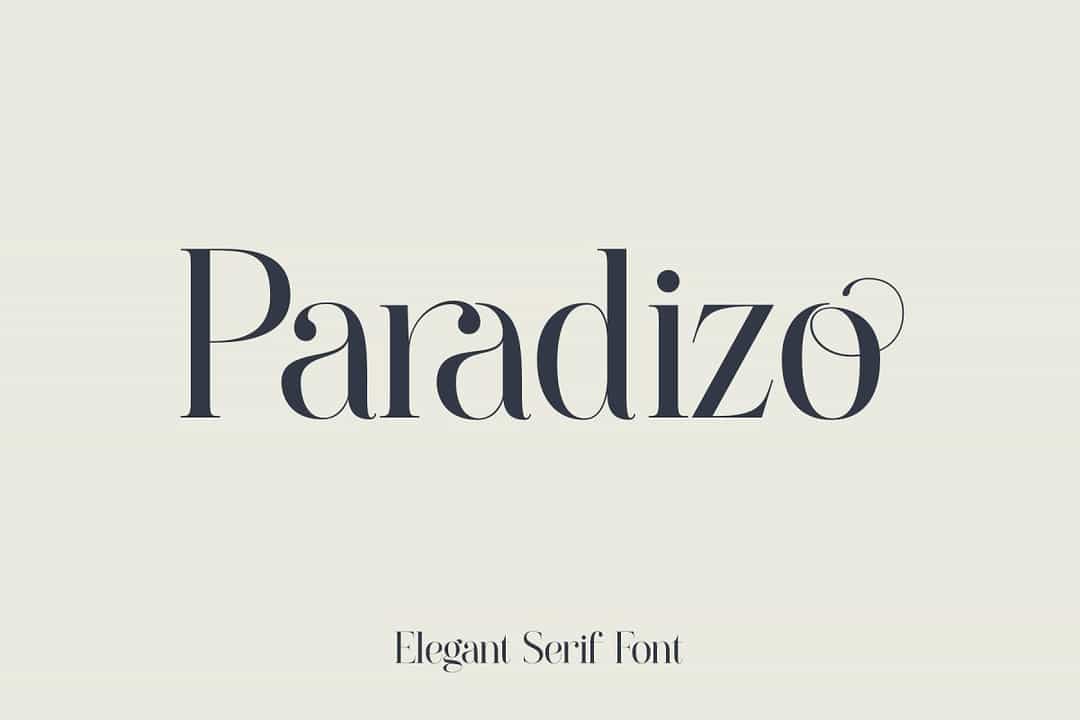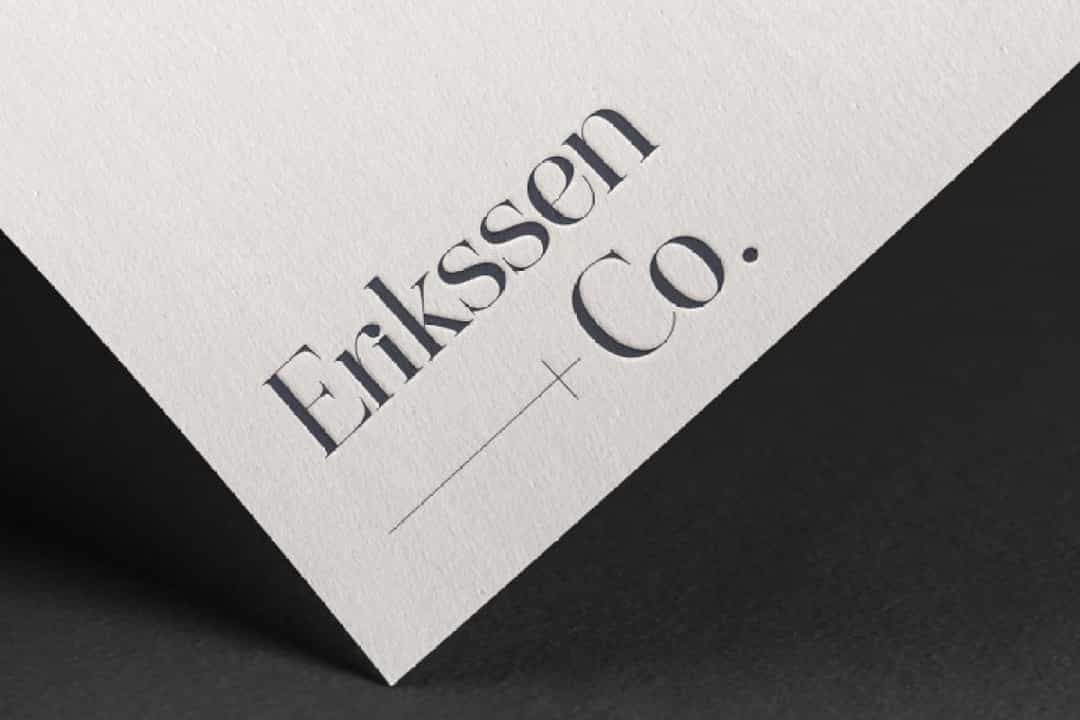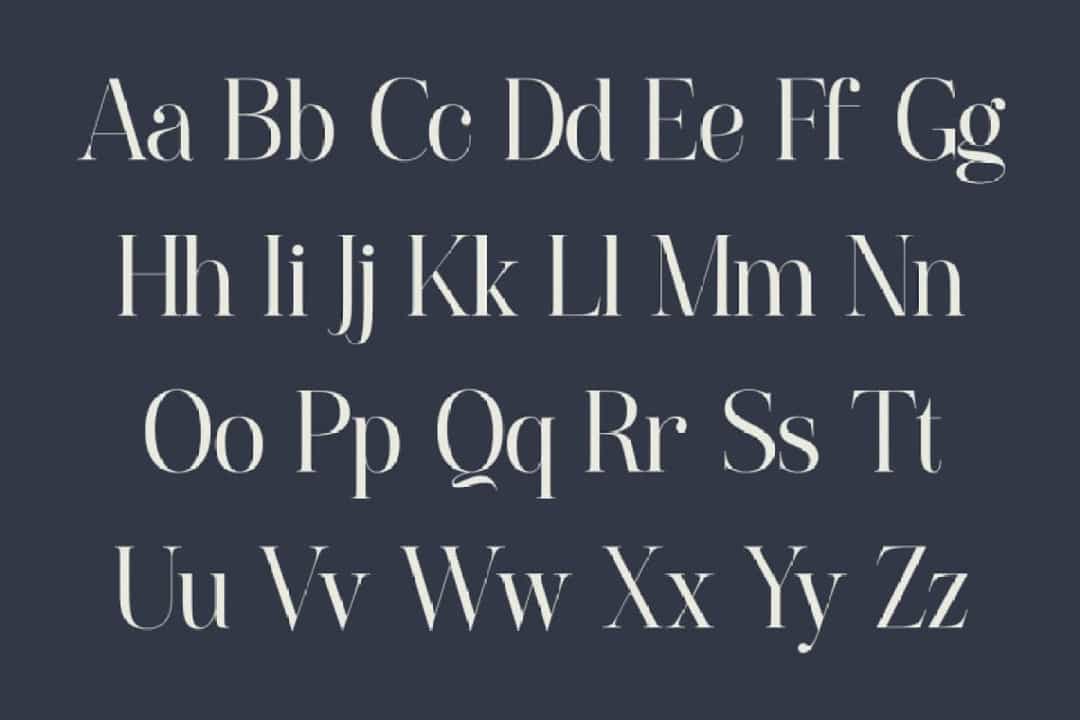
Paradizo is a sleek font that features serif letters and is available in both regular and oblique, to give you a way of easily producing unique and luxurious designs that are perfect for editorial design, branding, the web, product design and so much more.